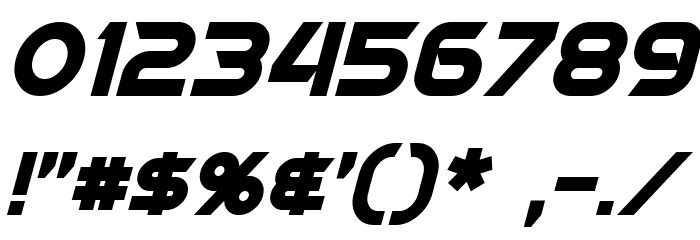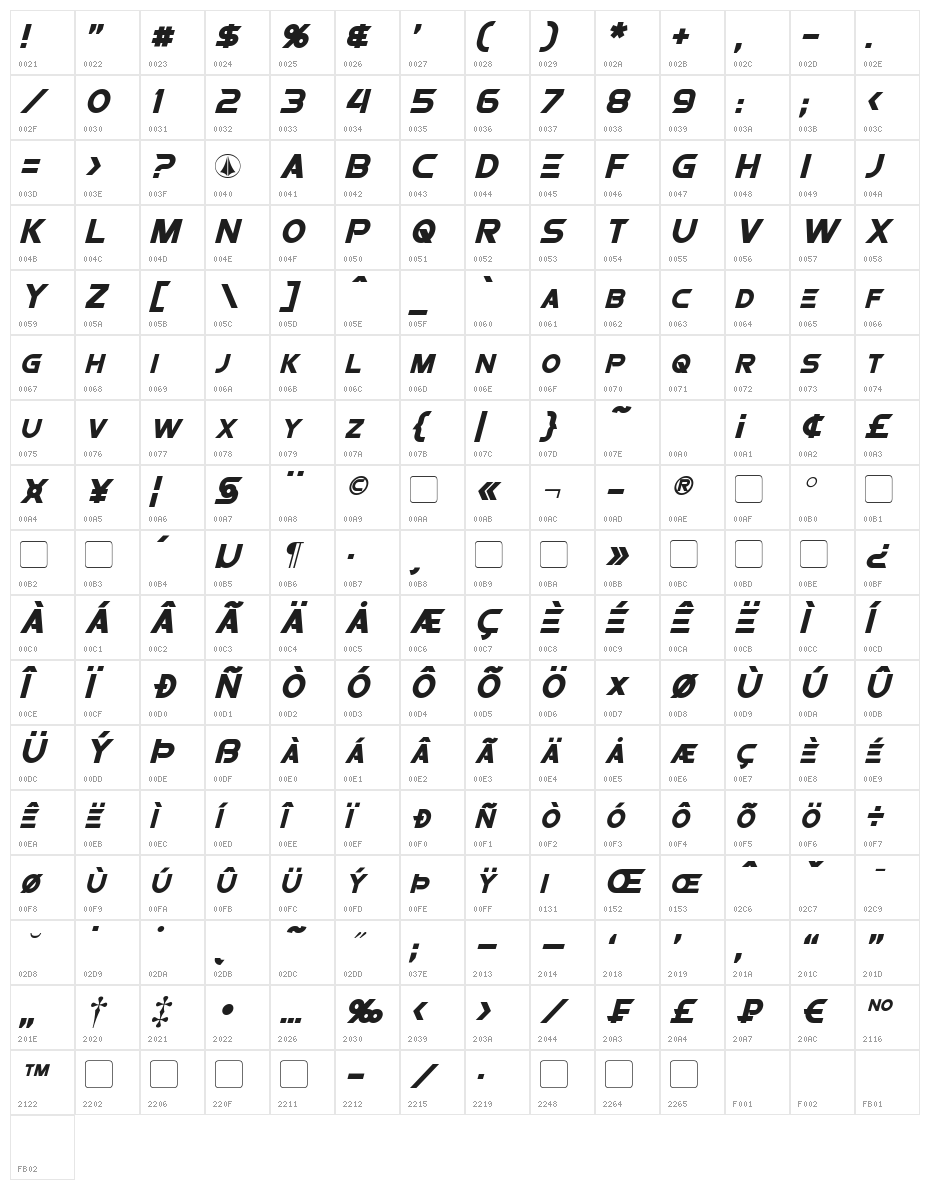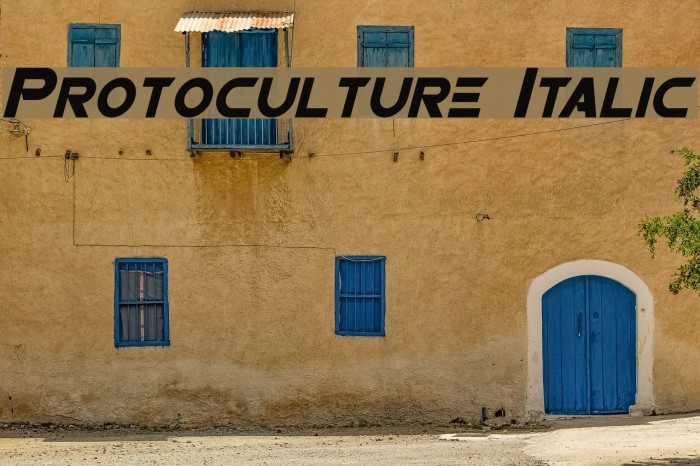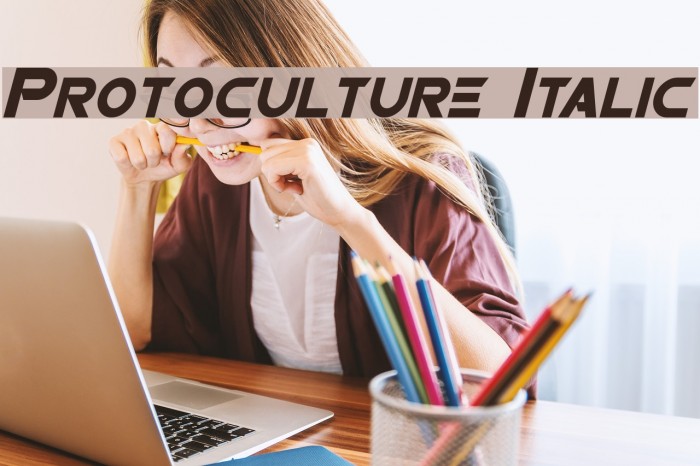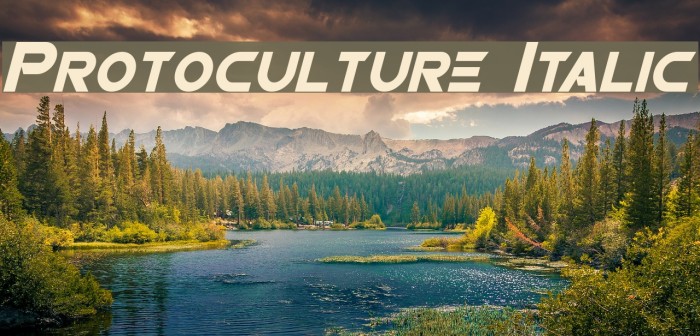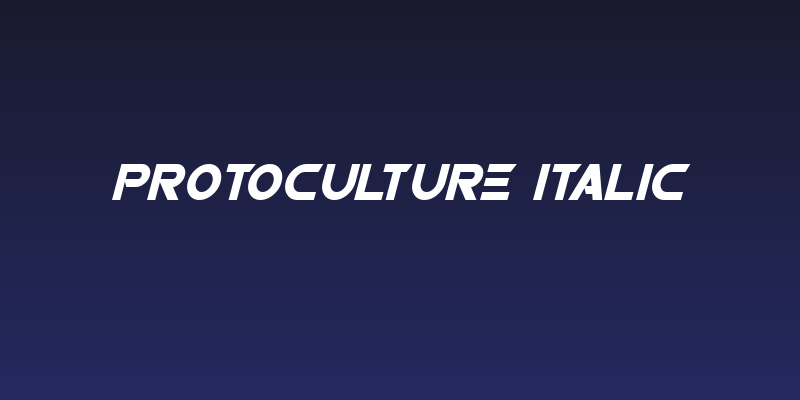
Protoculture Italic Font
Protoculture Italic Description
This font features a dynamic and futuristic design with a distinct italic slant, giving it a sense of motion and speed. The characters are bold and angular, with sharp edges and a modern aesthetic. The uppercase and lowercase letters maintain a consistent style, while the numerals and special characters complement the overall design. The font's geometric shapes and clean lines make it suitable for projects that require a contemporary and energetic look.
| Proposed Projects | Ideal for technology branding, sports team logos, video game titles, and sci-fi themed posters. |